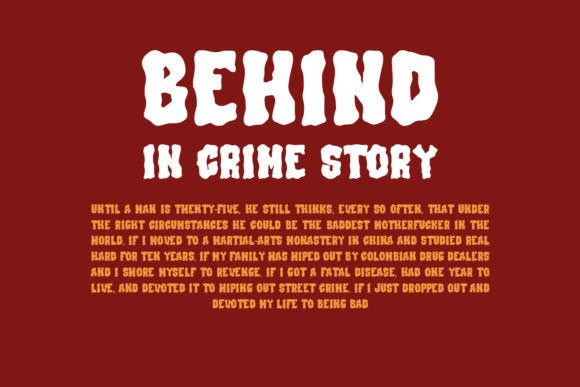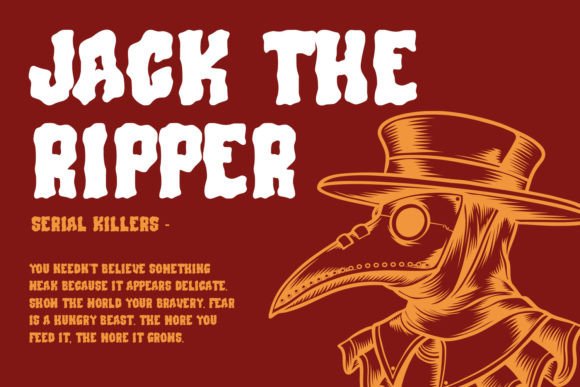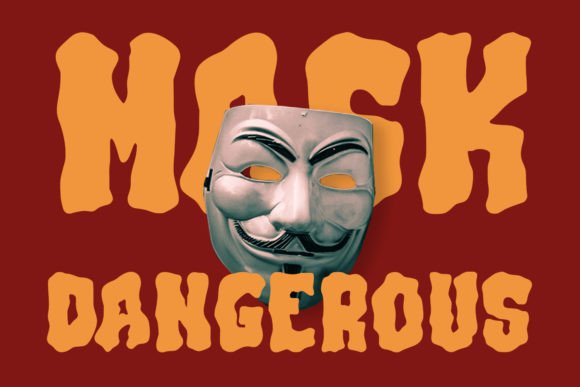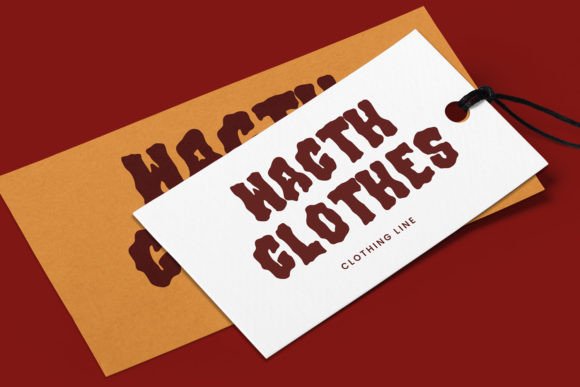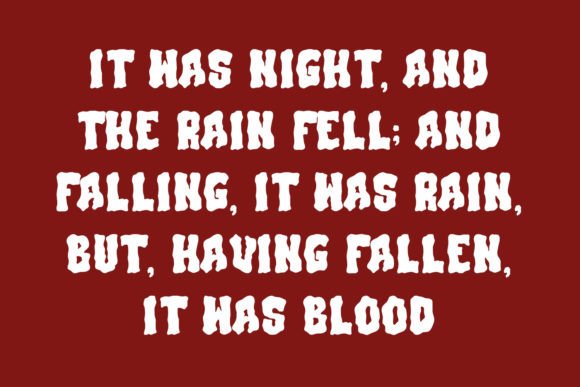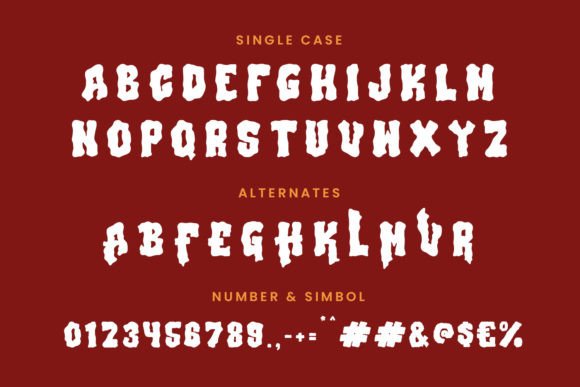
Introduction to Blood Slime  Font
This font looks like the design element for bone-chilling projects such as haunted houses and Halloween midnight movies.
This font is one that the ambiance of horror is available in every way this is used, invitations, postcards, posters, and headings for Halloween events .
Blood Slime  Font offers exceptional quality and versatility, making it a valuable addition to your design toolkit. Whether you’re creating for personal projects or commercial use, Blood Slime  Font delivers professional results.